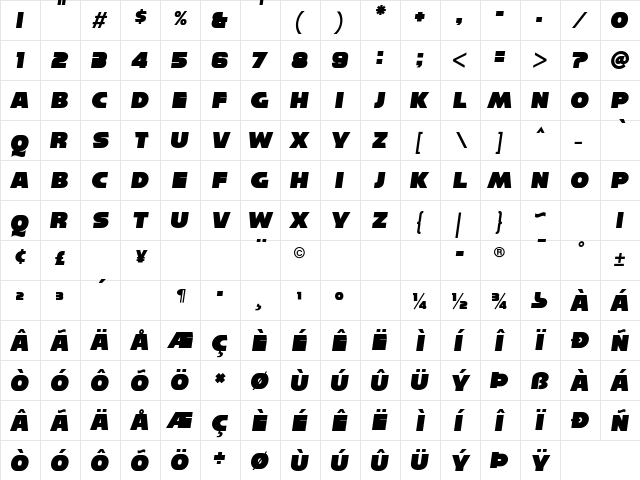
Reisenberg Italic
Design Context for Reisenberg Typeface
Reisenberg is a composed and adaptable typeface that performs quietly and consistently across a wide range of design contexts. Its italic angle brings a sense of urgency and motion to the letterforms.
Pro Tip: Use Reisenberg for emphasis, pull quotes, and subheadings where its slanted energy can add rhythm to the layout.